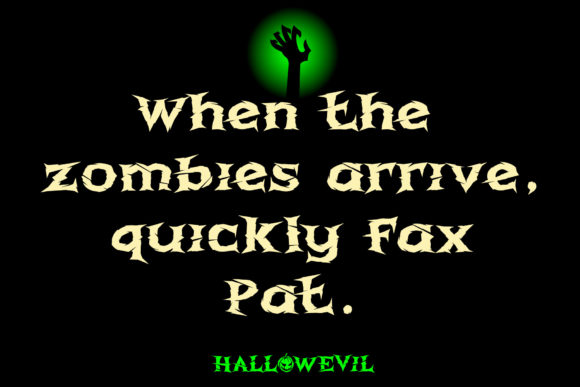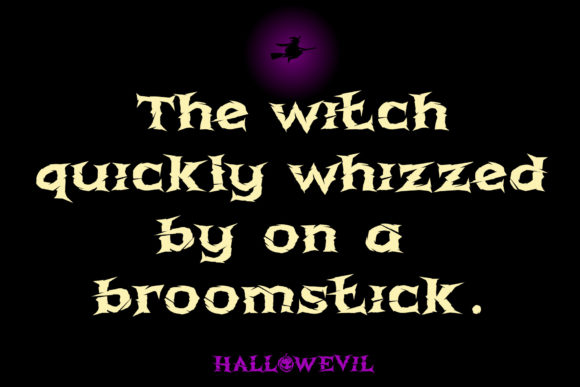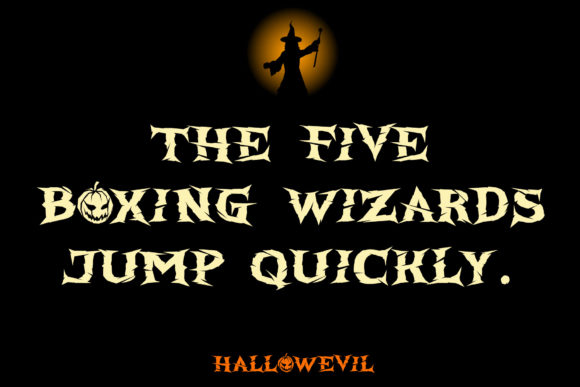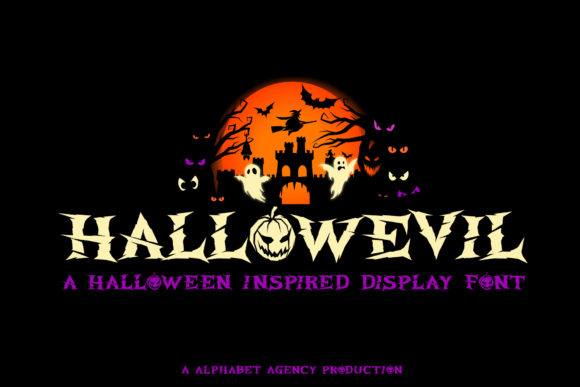
Hallowevil Font: The Spookiest Display Font for Your Halloween Projects
Are you looking for a font that will add a spooky touch to your Halloween-related projects? Look no further than the Hallowevil font! This thick-lettered and eerie display font is perfect for any crafty idea you have, and the only limit is your imagination. In this article, we’ll dive into the details of the Hallowevil font, its features, and how you can use it to make your Halloween projects stand out.
What is Hallowevil Font?
Hallowevil is a display font designed specifically for Halloween-themed projects. Its thick, bold letters are perfect for creating eye-catching headlines, titles, and signs that will grab attention. The font’s spooky and eerie feel makes it ideal for Halloween decorations, party invitations, and other crafty projects.
Key Features of Hallowevil Font
- Thick-lettered and bold: The Hallowevil font features thick, bold letters that are perfect for creating eye-catching headlines and titles.
- Spooky and eerie: The font’s spooky and eerie feel makes it ideal for Halloween-themed projects.
- Highly versatile: The Hallowevil font can be used for a wide range of projects, from party invitations to decorations and more.
- Easy to read: Despite its bold and thick letters, the Hallowevil font is easy to read, making it perfect for titles, headings, and short paragraphs.
How to Use Hallowevil Font in Your Projects
The Hallowevil font can be used in a variety of projects, including:
- Halloween party invitations: Create spooky and eye-catching invitations that will set the tone for your Halloween party.
- Halloween decorations: Use the Hallowevil font to create spooky signs, banners, and decorations for your home or office.
- Craft projects: Add a spooky touch to your craft projects, such as pumpkins, ghosts, and other Halloween-themed crafts.
- Social media graphics: Create spooky and eye-catching social media graphics to promote your Halloween events or projects.
Tips for Using Hallowevil Font
Here are some tips for using the Hallowevil font in your projects:
- Use it sparingly: While the Hallowevil font is perfect for headlines and titles, it can be overwhelming if used too much. Use it sparingly to create a balanced look.
- Pair it with other fonts: Pair the Hallowevil font with other fonts to create a unique and interesting look.
- Experiment with colors: Experiment with different colors to find the perfect combination that will make your project stand out.
The Hallowevil font is a must-have for any designer or crafter looking to add a spooky touch to their Halloween projects. Its thick, bold letters and spooky feel make it perfect for creating eye-catching headlines, titles, and signs. With its versatility and ease of use, the Hallowevil font is sure to become a favorite in your font collection. So why wait? Download the Hallowevil font today and get creative with your Halloween projects!
Whether you’re a designer, crafter, or simply someone who loves Halloween, the Hallowevil font is sure to inspire your creativity and help you create spooky and eye-catching projects that will leave a lasting impression.